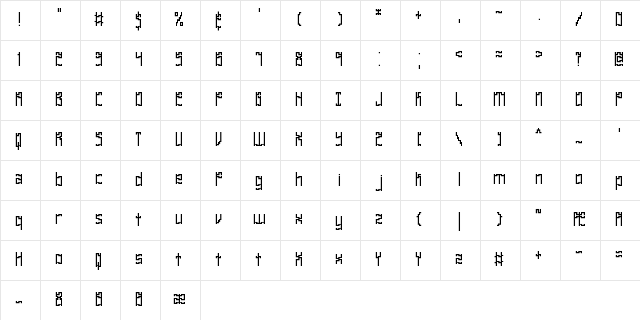
Complete Zirconia Cubic BRK Regular glyph index. Displaying only characters natively supported by Zirconia Cubic BRK Regular font.
Zirconia Cubic BRK is a composed and adaptable typeface that performs quietly and consistently across a wide range of design contexts.